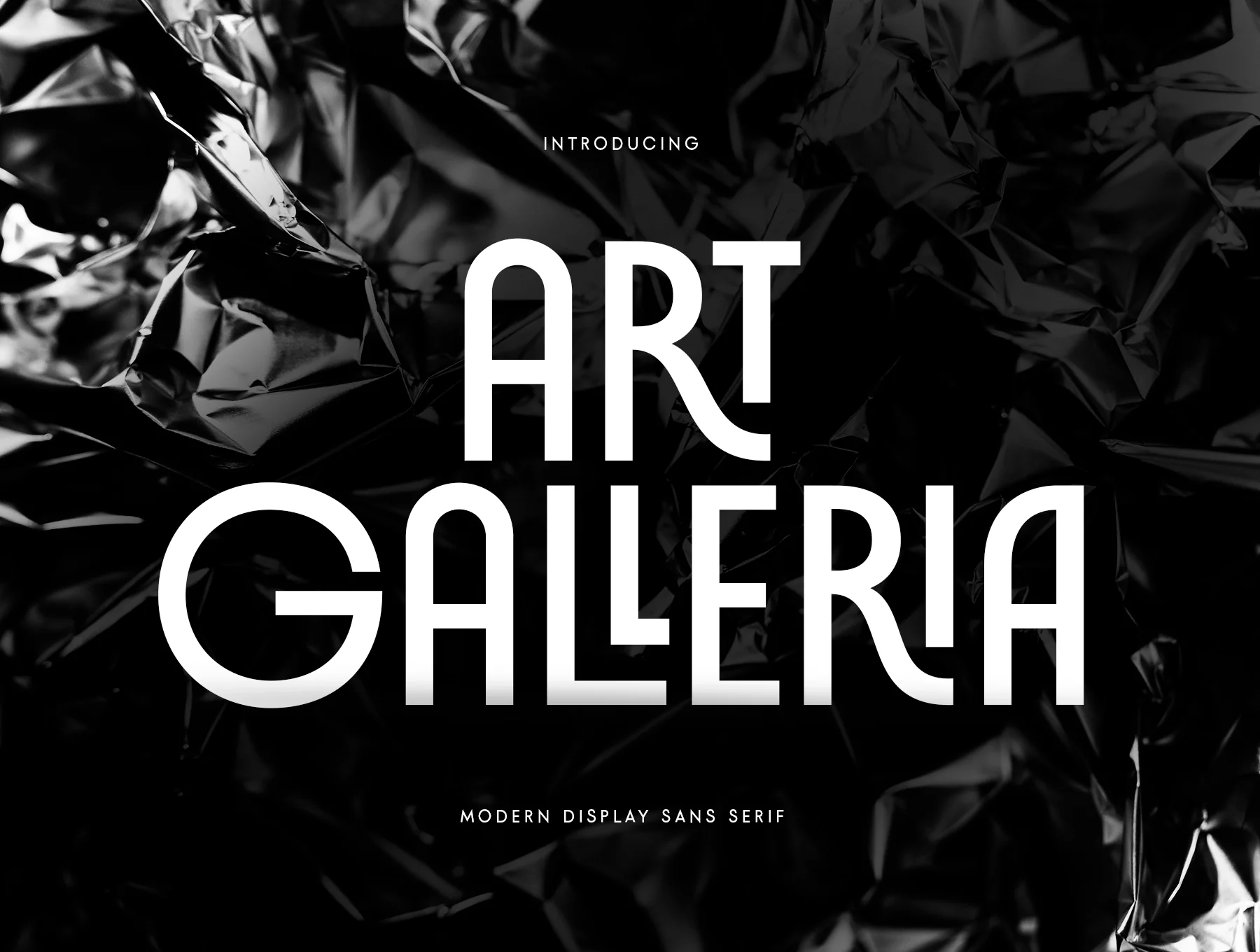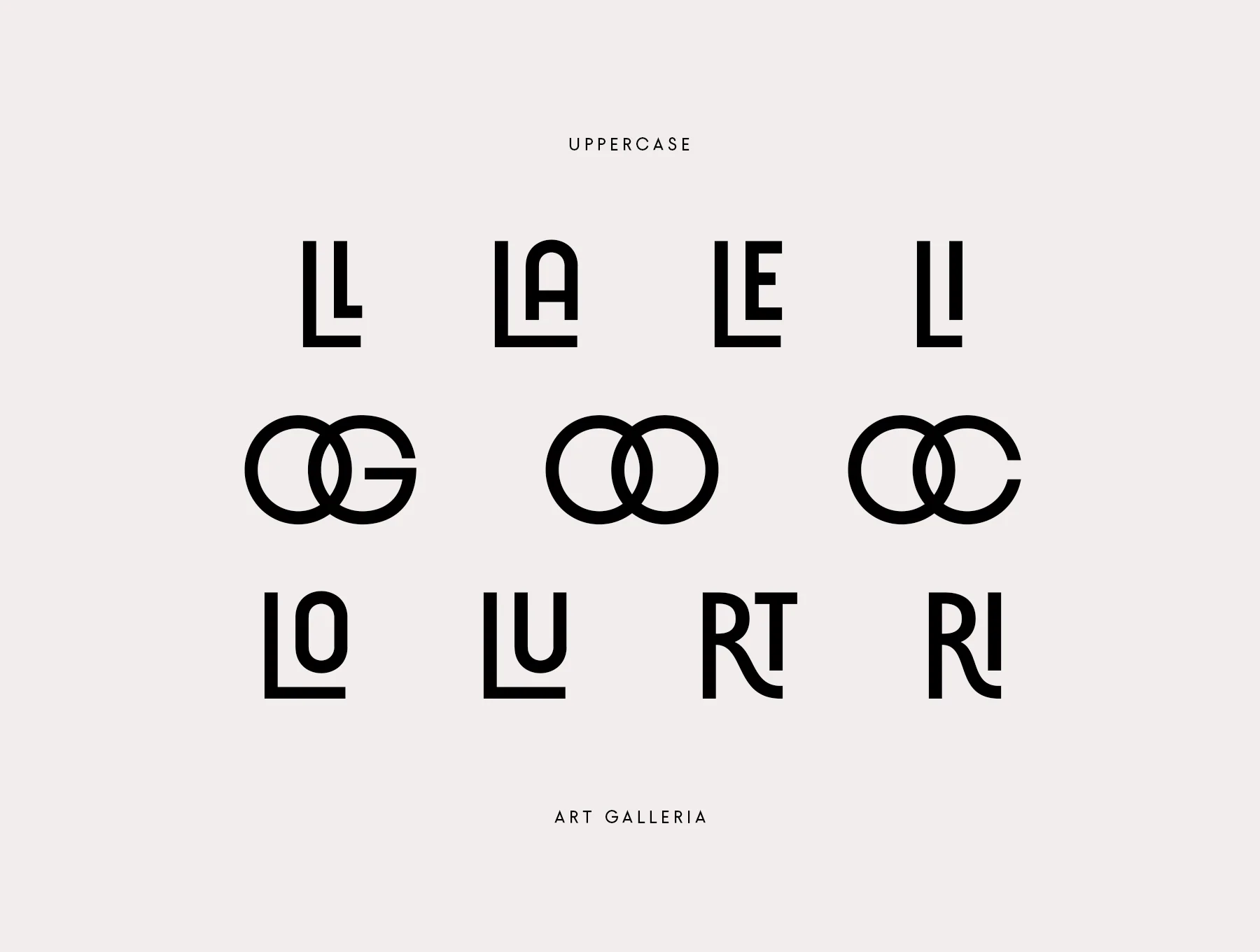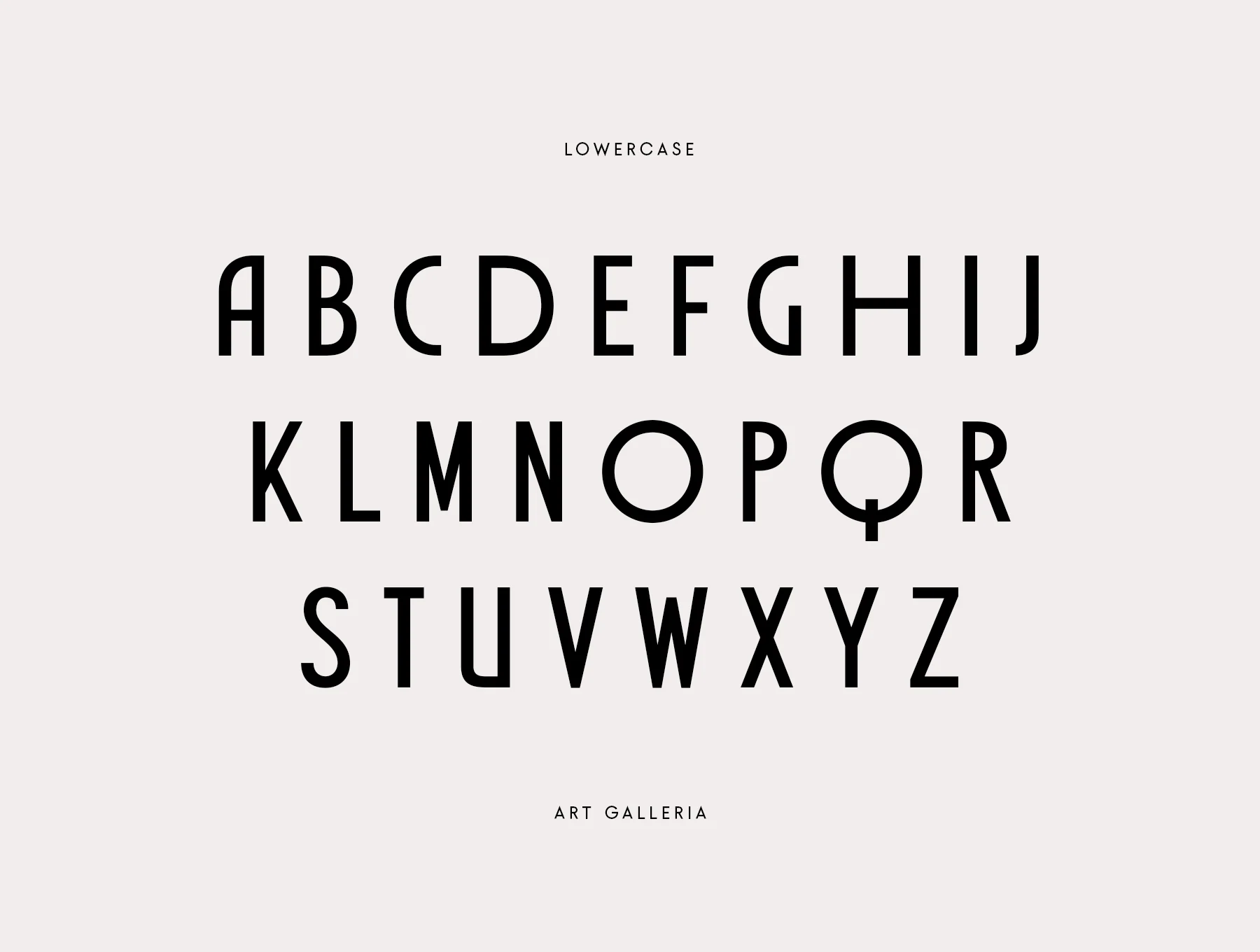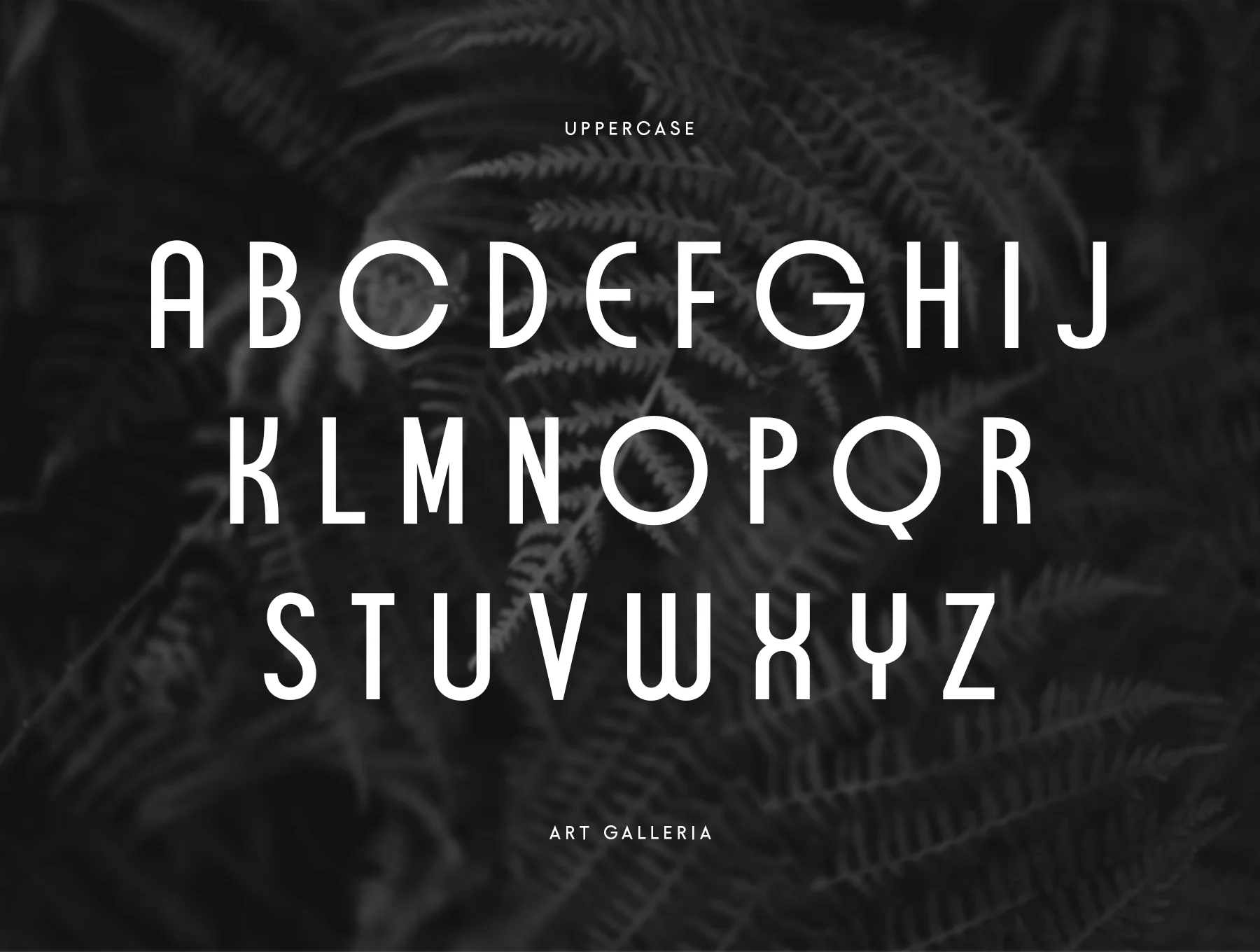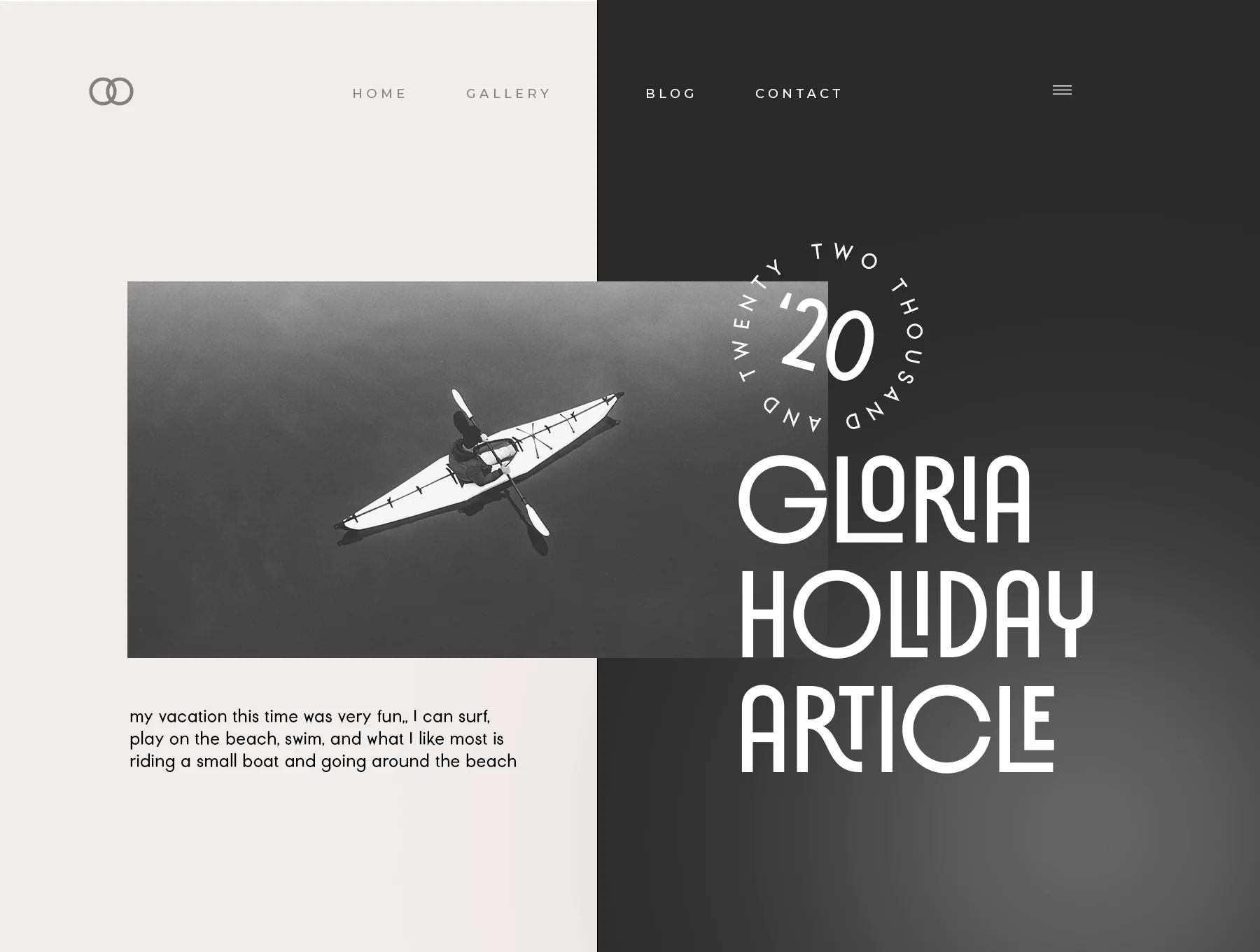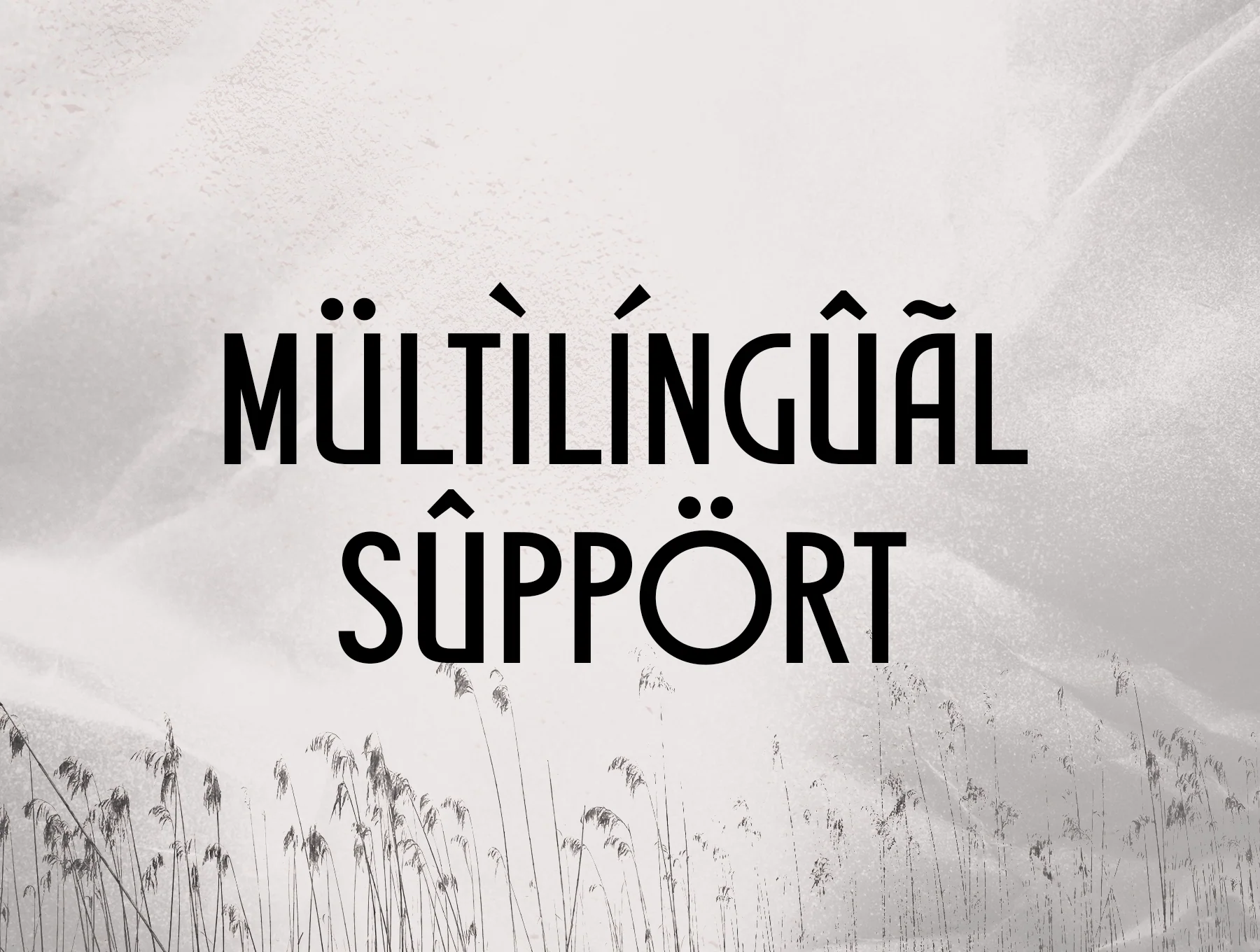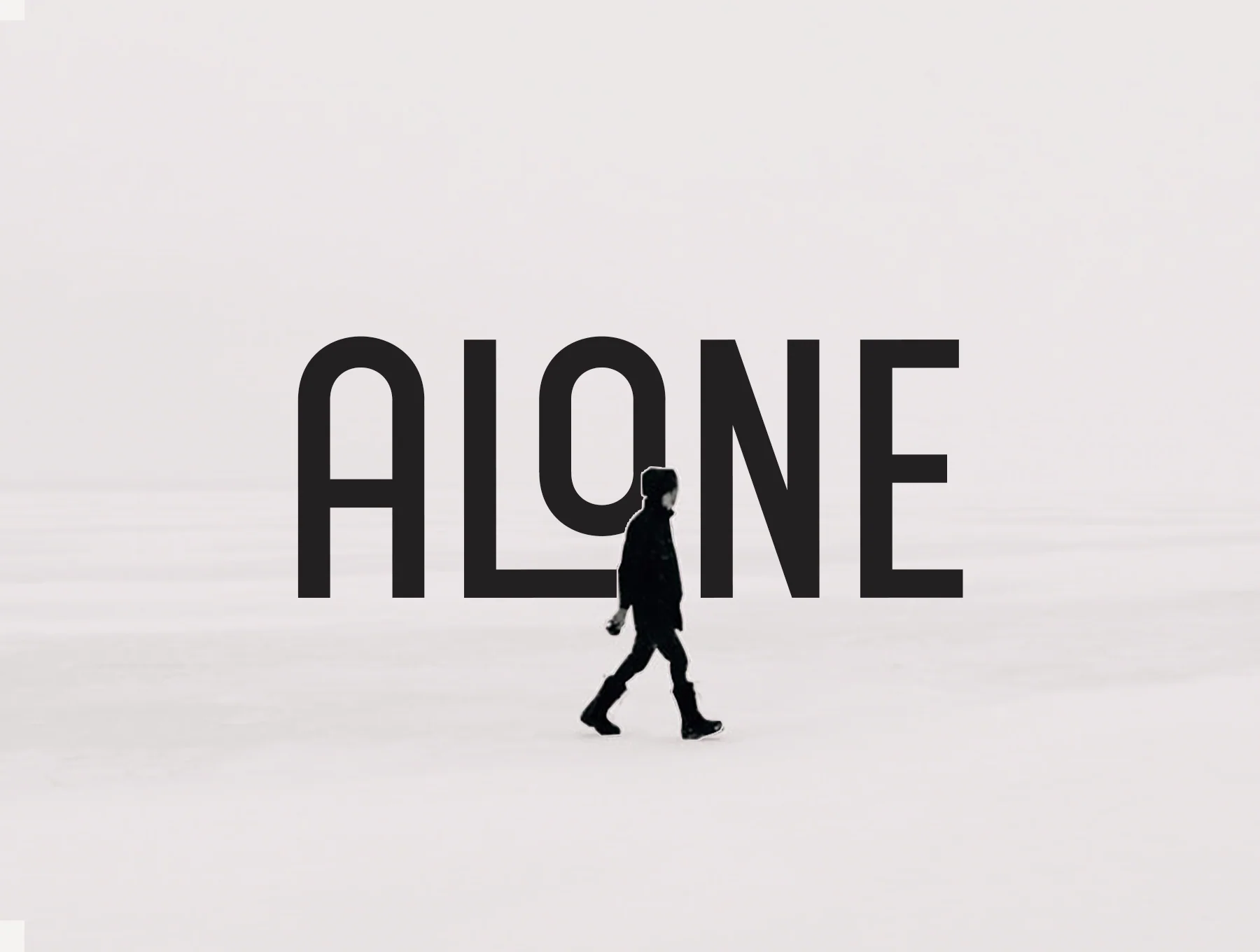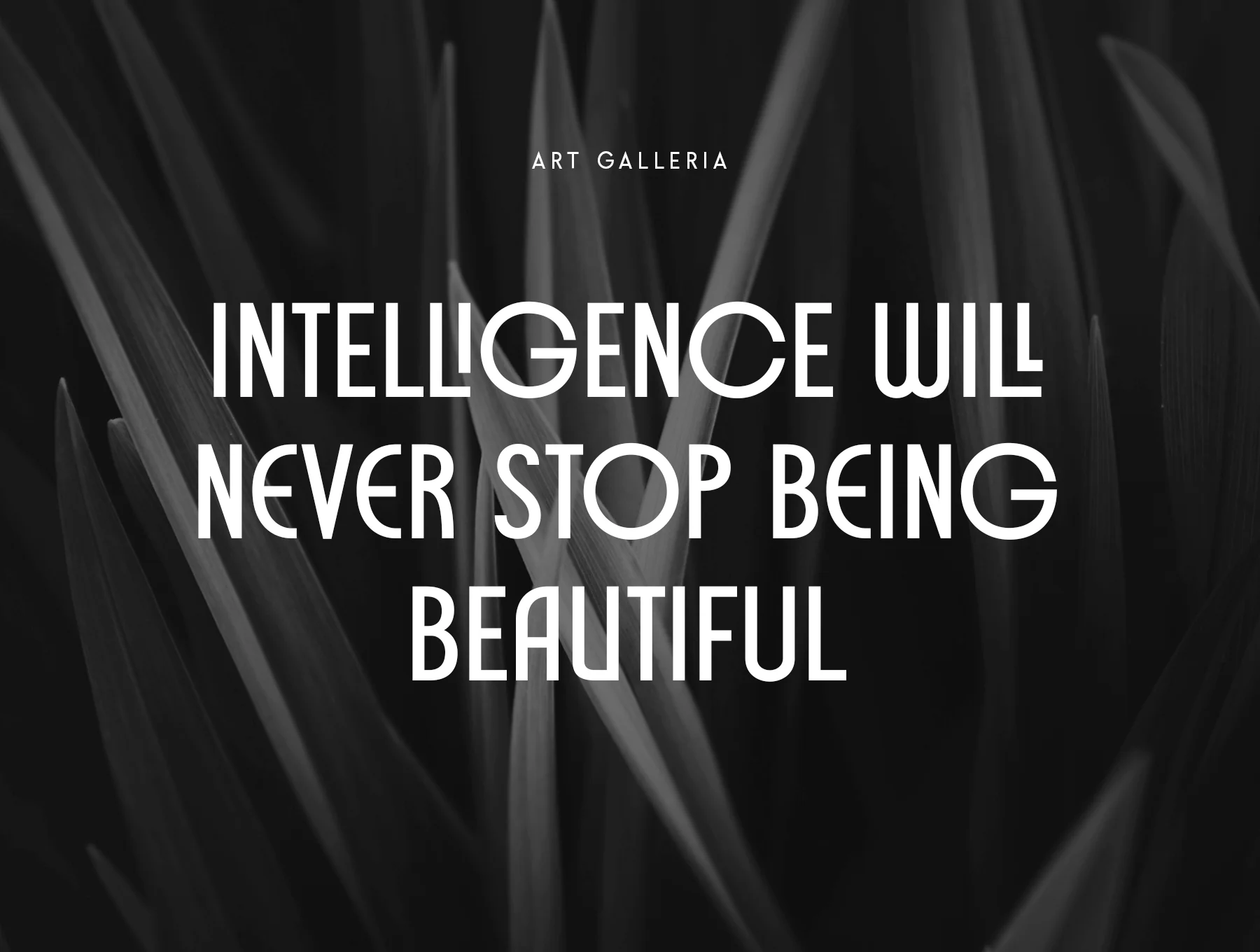
Art Galleria Font
Art Galleria – Contemporary Sans Serif for Displays
Numbers and punctuation marks
Alternate styles and glyph ligatures
Art Galleria is a modern display sans serif made for branding. Its distinctive ligatures and alternate characters help give your brand a fresh, unique look. Designed for creators and product owners, this font offers flexible styling options so you can build modern designs with plenty of creative variation.